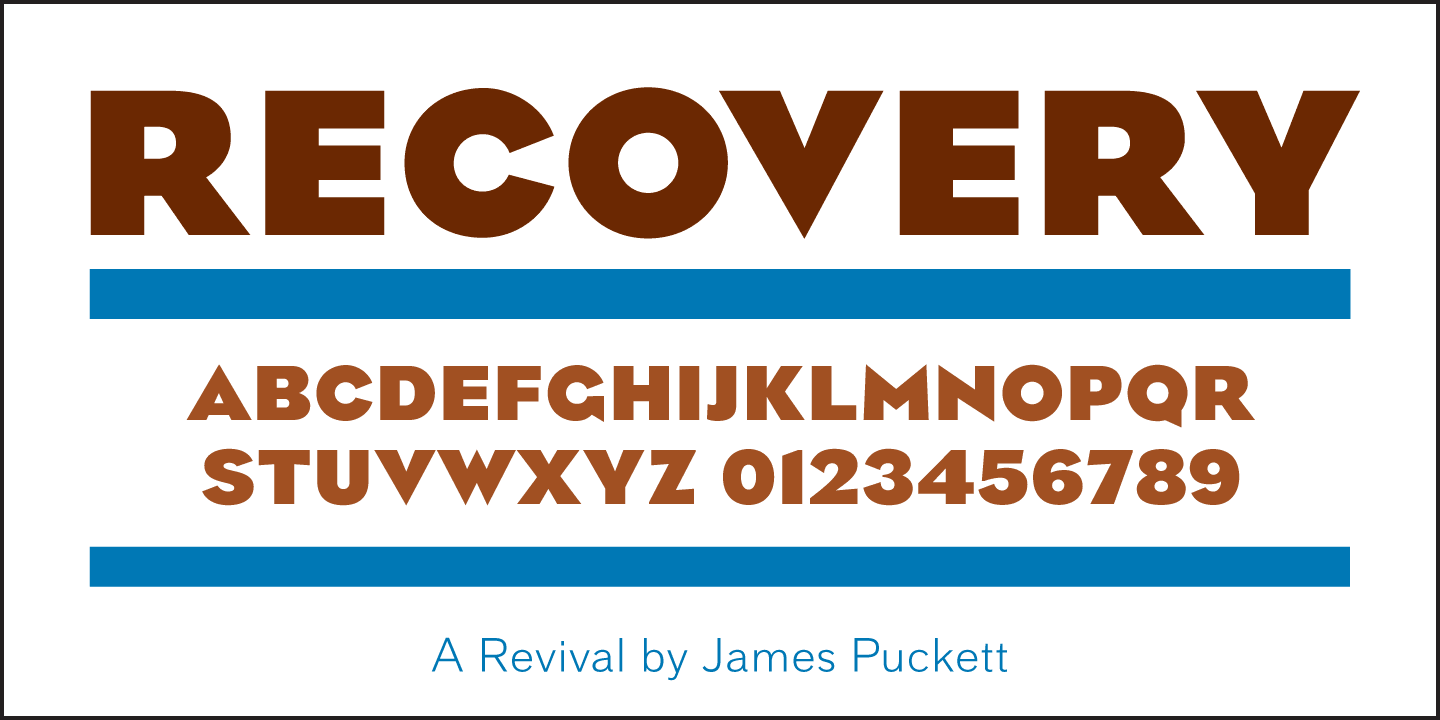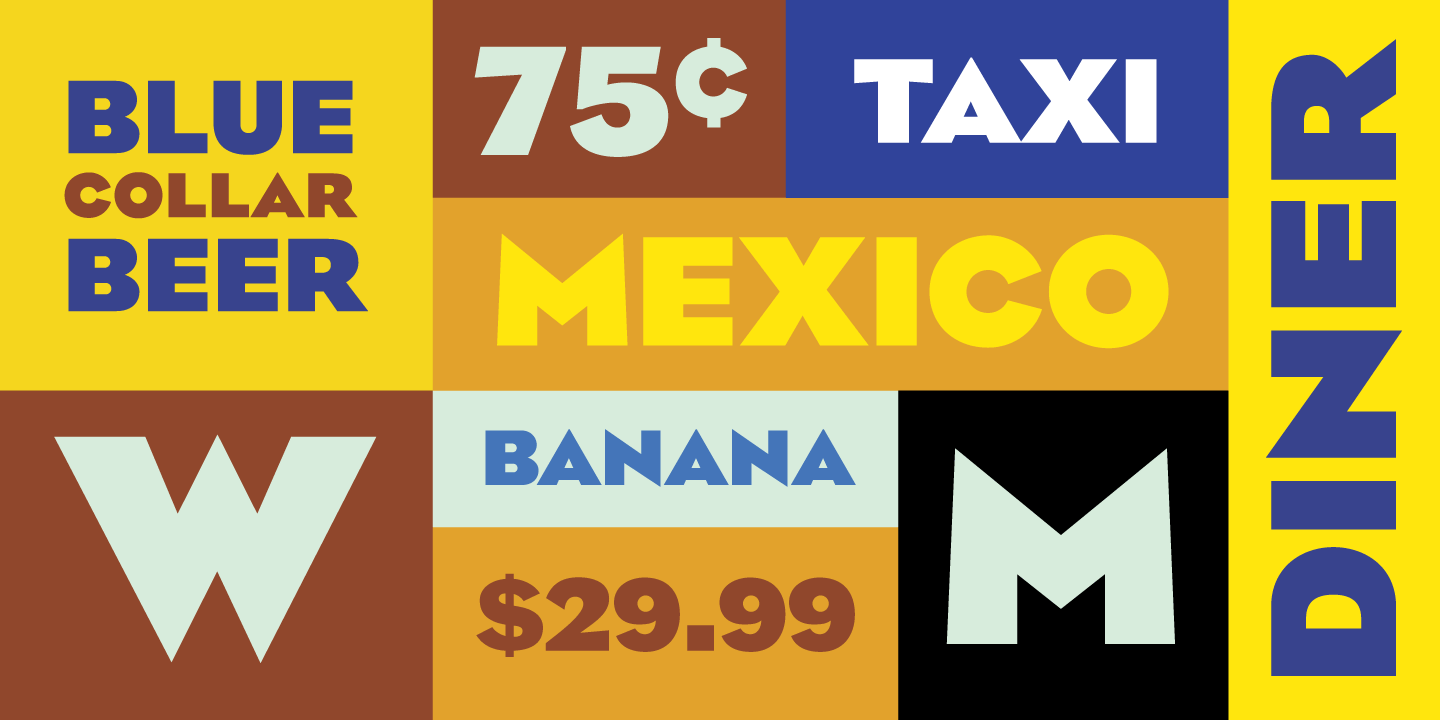
Recovery
Buy NowCharles Coiner (1898-1989) was a giant in the history of American graphic design, recognized with the first National Society of Art Directors Annual Award and an AIGA medal. As an art director at N. W. Ayer & Son Coiner commissioned work by great artists of the era including Norman Rockwell, Georgia O'Keefe, and Pablo Picasso. His work for private and government clients helped popularize modernism in the United States.
In 1933 Franklin D. Roosevelt created the National Recovery Administration as part of his New Deal program to lift America out of the Great Depression. The NRA was intended to halt the collapse of American industry by replacing free markets with government mediated standards for pricing, wages, working hours, and other aspects of business.
Coiner was commissioned to design an identity for the NRA. His design was a radical departure from contemporary standards: a flat blue eagle appearing under the letters NRA drawn in a geometric style similar to Paul Renner's typeface Futura. Using Coiner's letters as a starting point, M. F. Benton designed the typeface Eagle Bold for American Type Founders. Eagle Bold is now regarded as a classic American headline face.
Businesses across America displayed Coiner's logo on posters and flyers proclaiming their cooperation and NRA banners were lofted over propaganda parades. Then in 1935 a Supreme Court ruling shut down the NRA, and Coiner's Eagle disappeared from the public eye?but not before it had helped plant modernism into the nations collective visual consciousness.
Recovery is a reinterpretation of Coiner's letters and Benton's Eagle Bold. I began drawing Eagle to explore the design of extremely heavy letters and as I worked on it I began to appreciate the design and its place in history. Coiner put the avant-garde style of Europe on display across America. His NRA logo is an icon of the years when American designers dove headfirst into modernism. This moment in history and its visuals deserve continued exploration, and connecting to our past like this helps remind us who we are and where we are going.
- James Puckett